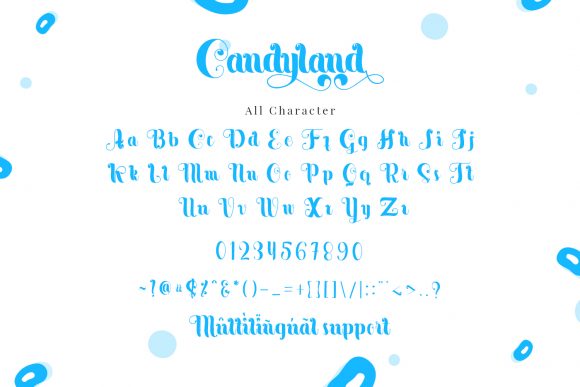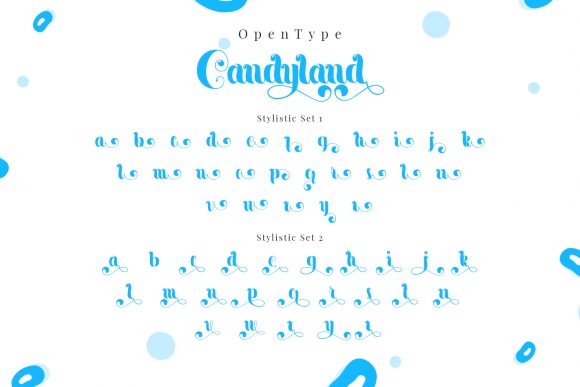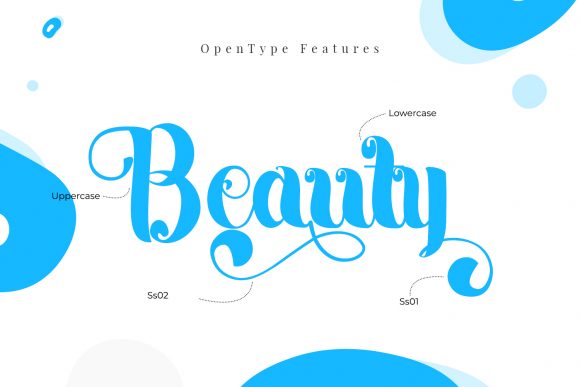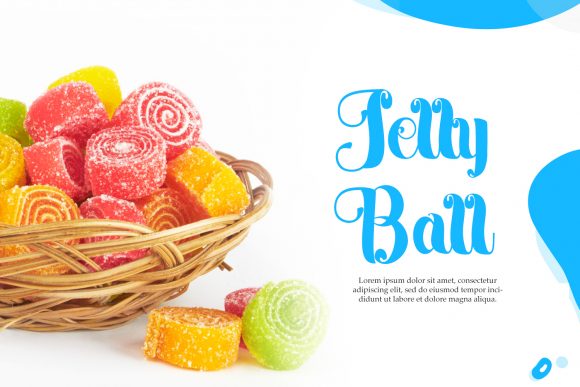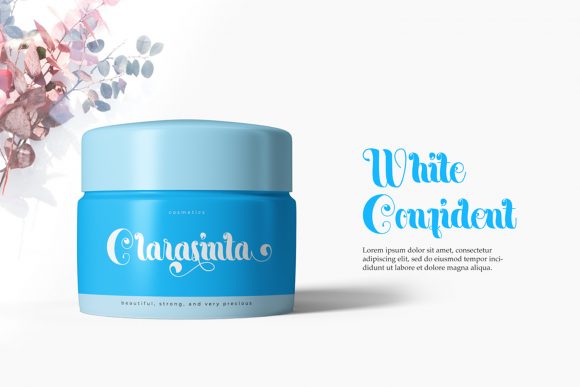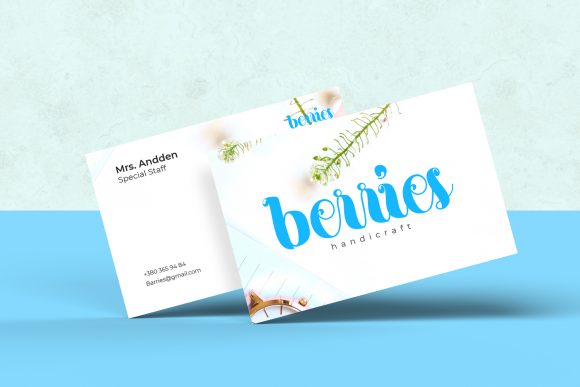
The Sweet Spot: Discovering the Charm of Candyland Font
I’ll never forget the design struggle I faced while working on a fashion branding project. My client wanted a font that was bold, stylish, and readable, but I was coming up empty-handed. That’s when I stumbled upon Candyland Font, and it was love at first sight! 💕 In this article, I’ll share my experience with this modern display font, its features, and how to make the most of it in your designs.
Candyland Font has won me over with its smooth curves and versatility. Here’s what I love about it:
• ✨ Readability: Despite being a bold font, Candyland is surprisingly easy to read, making it perfect for headlines and titles.
• ✅ Style versatility: It works well in both fashion branding and editorial designs, and its modern look makes it suitable for a wide range of projects.
• 💥 Visual impact: The smooth curves and bold lines create a stunning visual effect that’s sure to grab attention.
Of course, no font is perfect, and Candyland has a few quirks:
• 🤔 Limited use in body text: While it’s readable, Candyland is best suited for headlines and titles. Using it for body text might make your content difficult to read.
• ⚠️ Glyph limitations: While it has a range of glyphs, some users might find it limited compared to other fonts.
Exploring Alternatives: Similar Fonts to Candyland
If you like Candyland Font, you might also enjoy:
• Pacifico: A modern script font with a similar feel to Candyland, perfect for fashion and lifestyle brands.
• Great Vibes: A stylish script font with a more elegant look, suitable for editorial designs and luxury brands.
• Alex Brush: A bold, modern font with a similar personality to Candyland, great for headlines and titles.
• Bramble: A sweet, handwritten font with a more whimsical feel, ideal for projects that require a touch of playfulness.
The Story Behind Candyland Font
Candyland Font was designed with the modern designer in mind. Its creator aimed to craft a font that was both stylish and readable, perfect for a range of design projects. Inspired by the world of fashion and editorial design, Candyland Font has become a go-to choice for designers seeking a bold, yet elegant look.
What makes Candyland Font unique? Candyland Font stands out with its smooth curves, bold lines, and readability, making it perfect for fashion branding and editorial designs.
Is Candyland Font suitable for body text? While it’s readable, Candyland Font is best suited for headlines and titles. Using it for body text might make your content difficult to read.